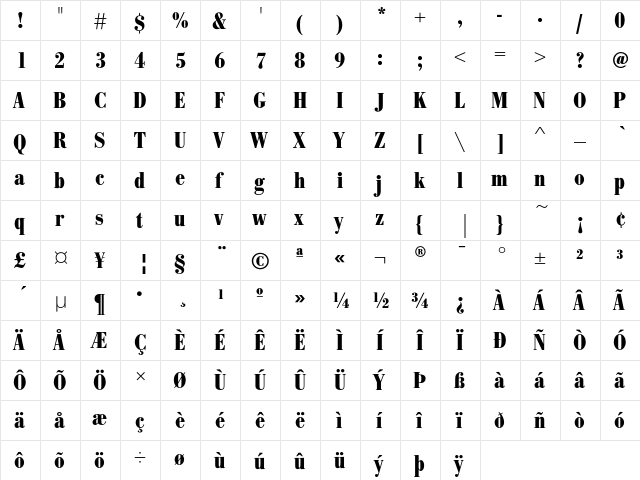
BodoniEF BoldCond Font Preview
BodoniEF BoldCond
Design Context for BodoniEF Typeface
BodoniEF is a composed and adaptable typeface that performs quietly and consistently across a wide range of design contexts. The heavy weight commands attention and anchors typographic hierarchies. Its narrow stance lets it pack a punch even in space-constrained designs.